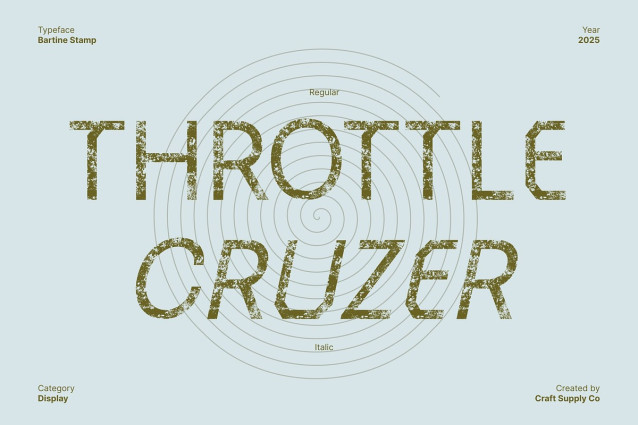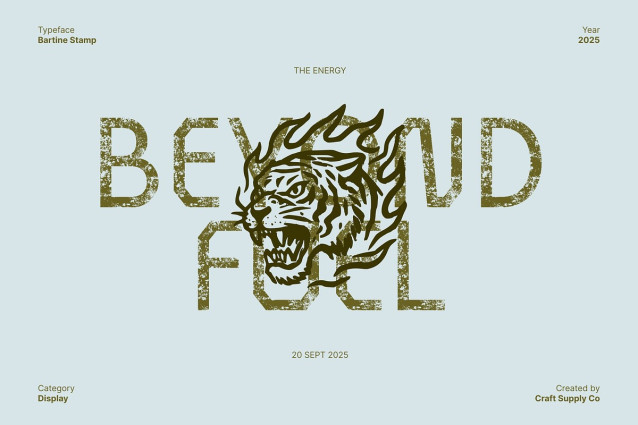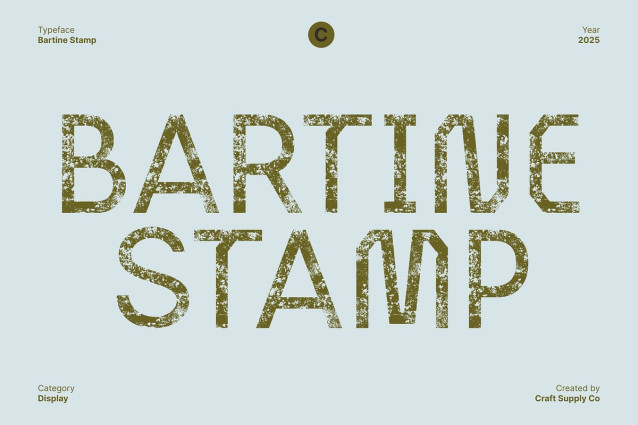
Bartine Stamp Font
Bartine Stamp Font is a rugged sans serif font that blends industrial precision with a modern handcrafted edge. Its strong, geometric structure conveys confidence and durability, while subtle imperfections add depth and authenticity. This balance of power and artistry makes it perfect for projects that demand a commanding yet creative presence.
Stamp Texture for Authentic Appeal Featuring a distinctive stamp finish, this font introduces a tactile, handmade quality that enhances its industrial tone. The textured effect gives each letter a sense of history and craftsmanship, adding visual character that stands out in branding, posters, or packaging.
Masculine Aesthetic with Artistic Expression Designed with masculine proportions and bold visual impact, Bartine Stamp also carries a refined artistic sensibility. It’s ideal for logos, product labels, and editorial layouts that aim to merge strength with style, offering a versatile typographic solution for modern creators.
Perfect for Bold and Expressive Design From industrial branding to creative visual identities, this font delivers a modern, expressive look that embodies confidence and craftsmanship. Its rugged texture and sleek form work together to create a font that’s both powerful and timeless crafted for those who value design with edge and authenticity.